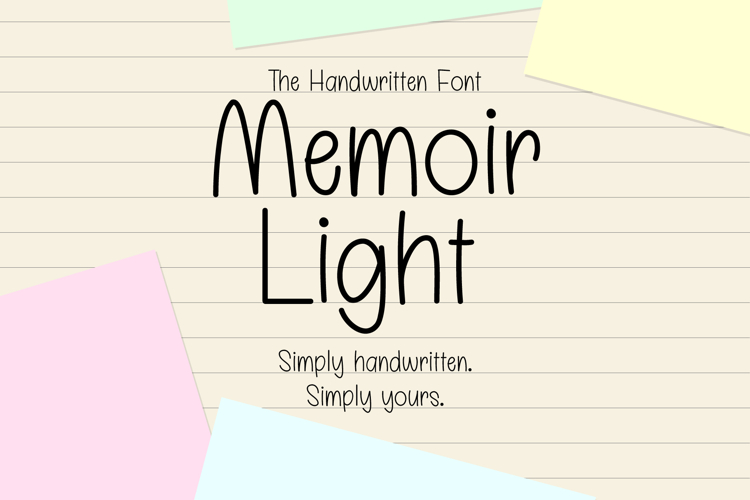
Immerse yourself in the intimate and soothing embrace of Memoir Light, a font that exudes an organic charm. Its origins lie in the soft stroke of handwritten notes, the calm cadence of reflective musings, and the everyday artistry of journal entries. Steeped in a sophisticated simplicity, Memoir Light delicately balances human warmth with neat elegance. From extensive written content to succinct, moving quotes, this unassuming font beautifully finds its place.